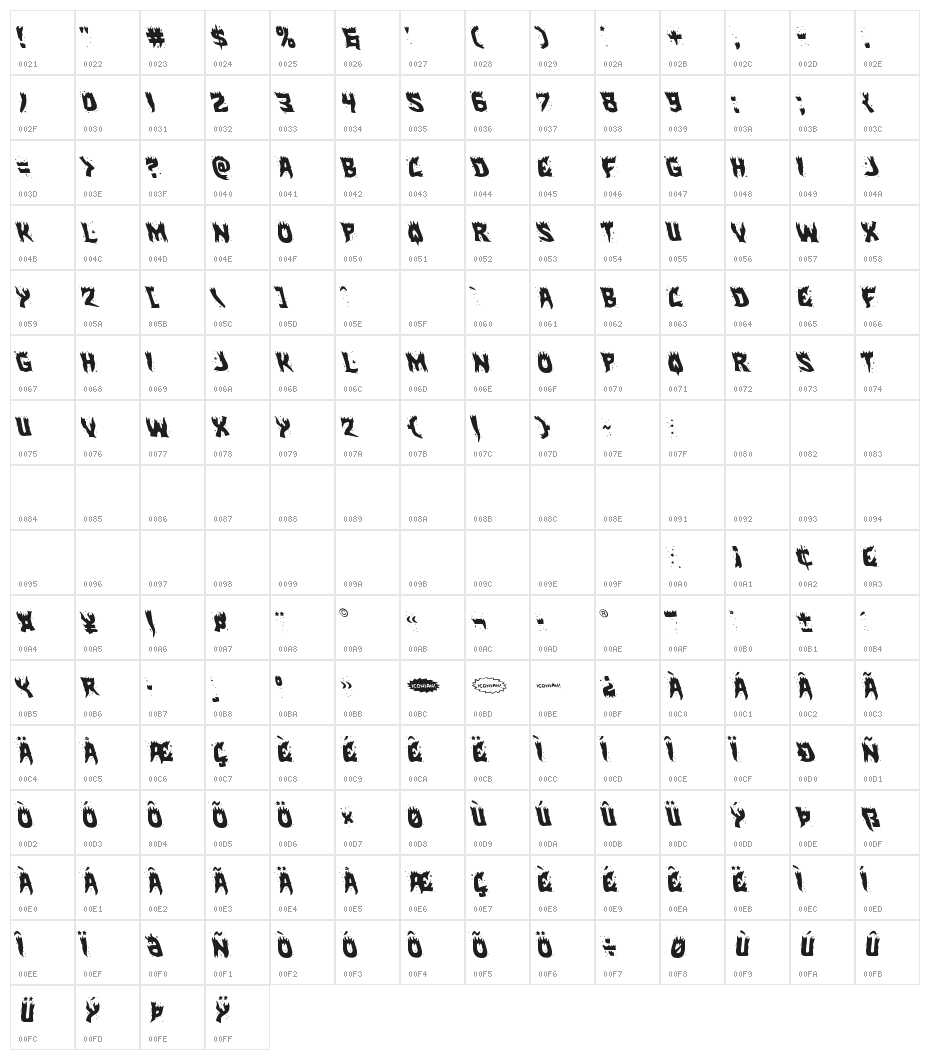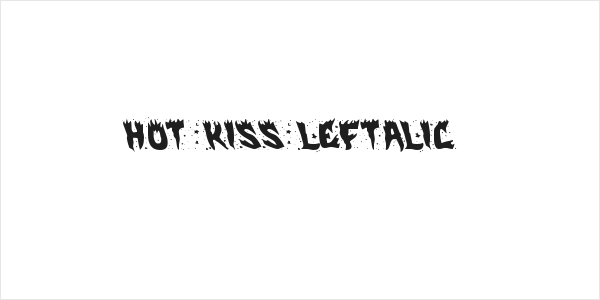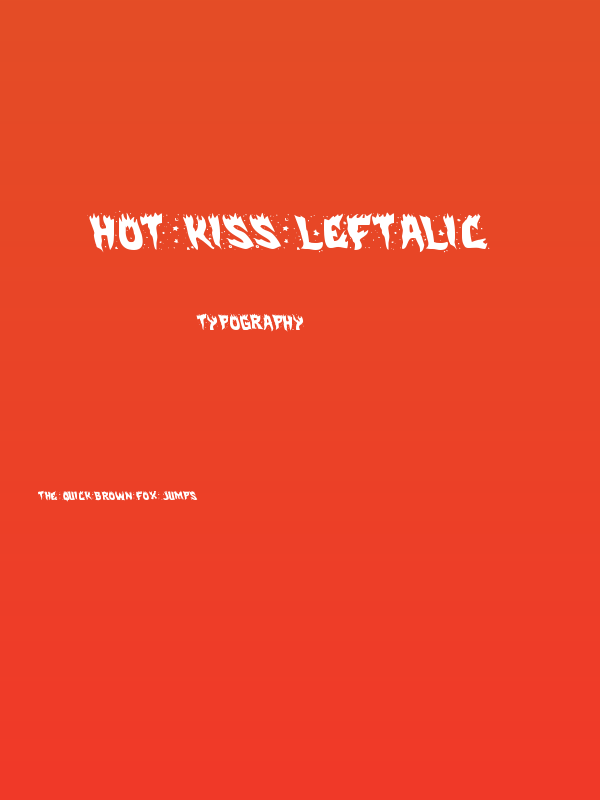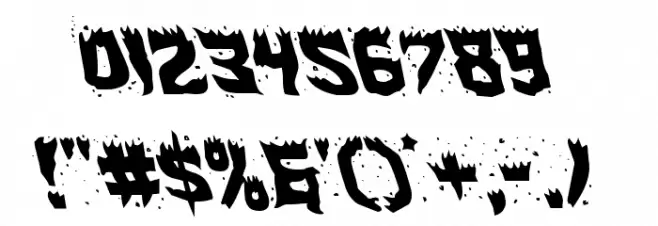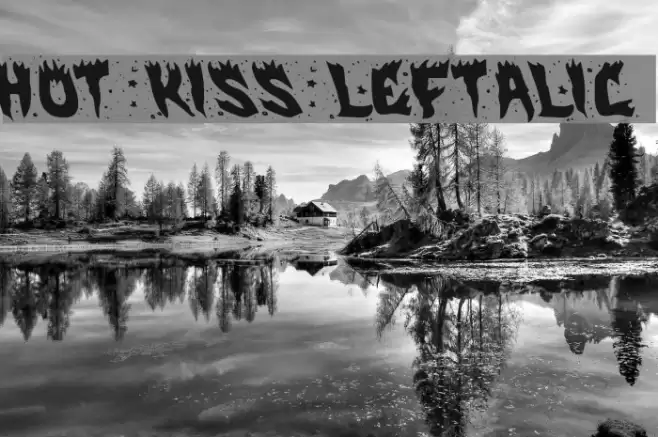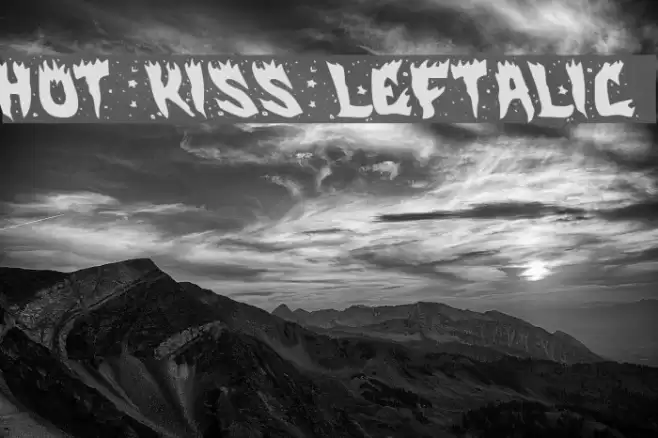
Hot Kiss Leftalic Font
This font features a bold, dramatic style with jagged, flame-like edges that create a sense of movement and intensity. The characters are heavily stylized, with irregular shapes and a dynamic, energetic appearance. The design is reminiscent of graffiti or street art, making it ideal for projects that require a bold, eye-catching aesthetic. The uppercase and lowercase letters maintain a consistent theme, with numbers and special characters following the same design principles. The font's unique style makes it suitable for creative and unconventional applications.
| Proposed Projects | Album covers, event posters, streetwear branding, video game graphics, and horror-themed designs. |